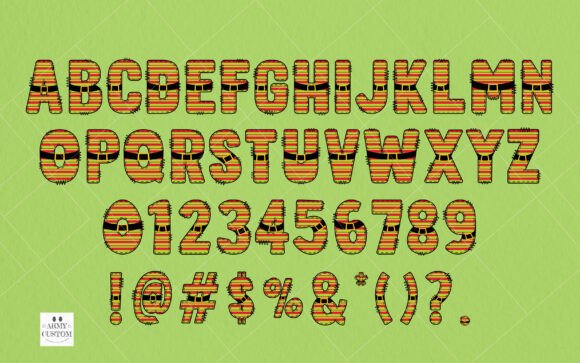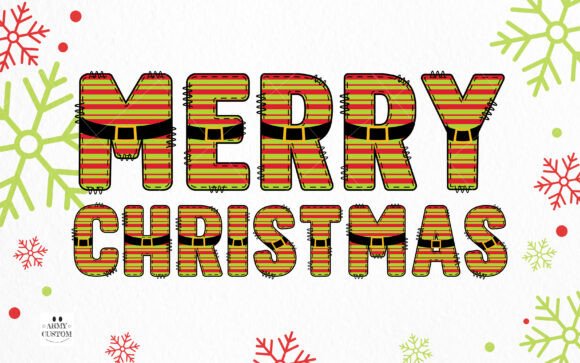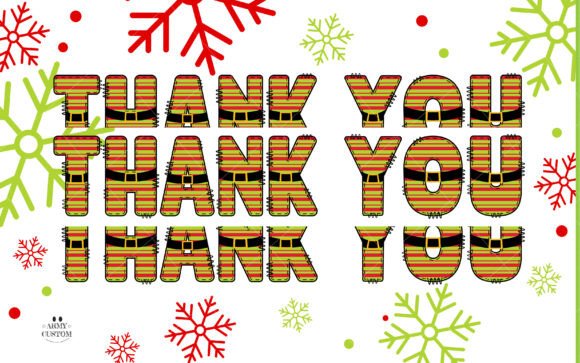
Introduction to Christmas Santa Stripe Font
As you sit at your desk, surrounded by half-finished holiday projects and scattered design files, the excitement of the season starts to build. You’re on the hunt for the perfect font to bring your festive creations to life. And then, like a jolly old elf, it appears: the Christmas Santa Stripe Font. This delightful design resource is the missing piece you’ve been searching for – a playful, whimsical addition to your holiday design toolkit.
With its high-quality, transparent background, the Christmas Santa Stripe Font is the perfect choice for adding a dash of merriment to any creative project. And the best part? It’s available for free download, making it a valuable resource for designers of all levels. Whether you’re working on a holiday decoration or a festive greeting card, this charming font is sure to bring a smile to your face and a touch of holiday cheer to your designs.
Key Features of Christmas Santa Stripe Font
- Unique design inspired by Christmas and Santa Claus, perfect for holiday-themed projects.
- Includes multiple font styles and variations, providing versatility for different design needs.
- Perfect for use in various creative projects, including holiday cards, gift tags, and social media graphics.
Honest Review: Christmas Santa Stripe Font
I recently stumbled upon the Christmas Santa Stripe Font, a free design resource that caught my attention. The font has a fun and playful vibe, perfect for creative projects like Christmas cards, gift tags, or social media graphics.
Here are some things that work well about this font: ✨
- High-quality design that’s perfect for a festive atmosphere
However, there are some limitations to consider: ⚠️
- The font is quite bold and might not be suitable for all design styles
- It’s a Christmas-themed font, so its usability is limited to holiday projects
Overall, I think the Christmas Santa Stripe Font is a great addition to any designer’s toolkit. While it may not be versatile enough for all projects, it’s perfect for those looking to add a fun and festive touch to their creative endeavors. With its high-quality design and free download, it’s definitely worth checking out.